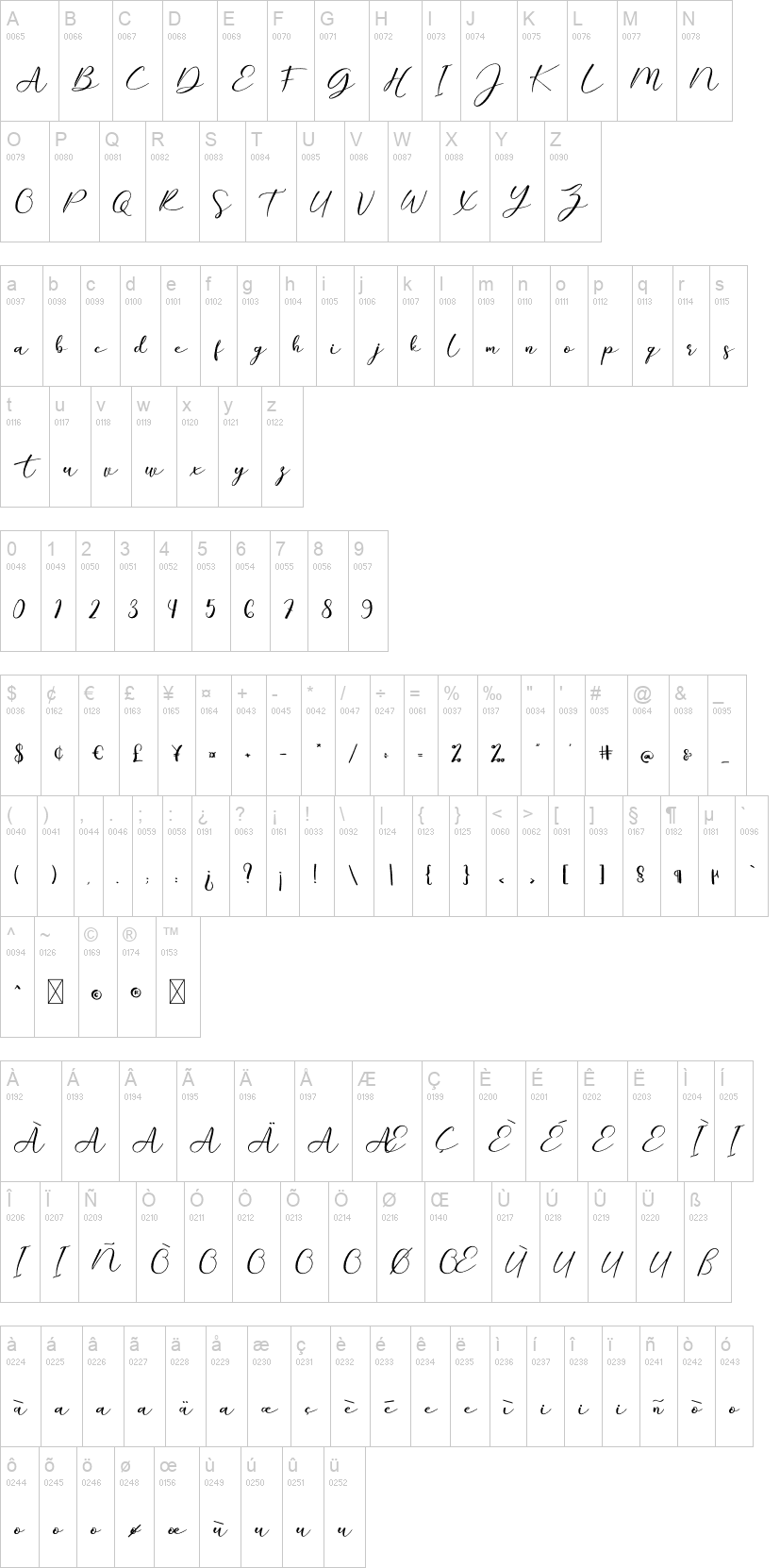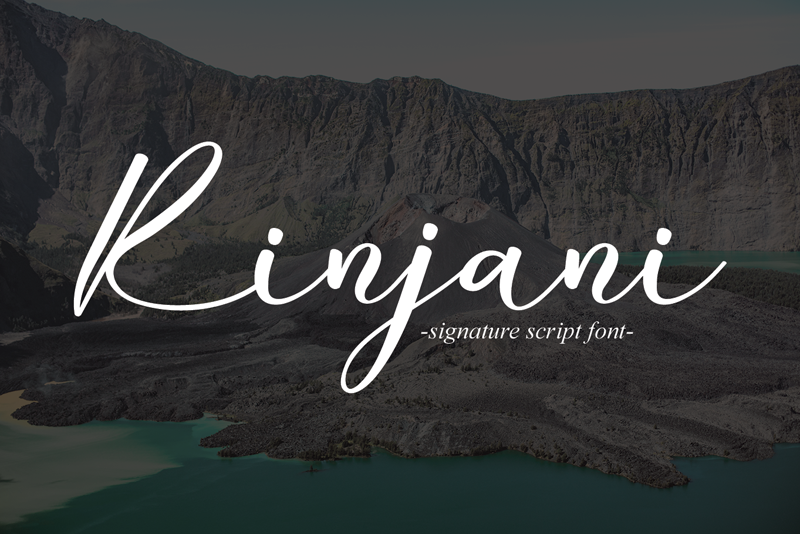
Note of the authorRinjani is a cursive script font featuring charming, playful characters that seem to dance along the baseline. Add this font to your most creative ideas, and notice how it makes them stand out!